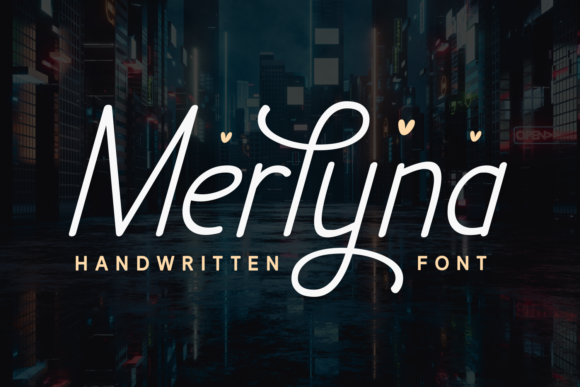
Behold, Merlyna, a script font that holds the key to unlocking your creative potential. Bask in the beauty of its ravishing style, meticulously designed to elevate your designs to breathtaking heights.
With Merlyna, your words transform into graceful strokes, each letter flowing effortlessly into the next. Its meticulously crafted glyphs and swashes await your command, ready to add a touch of elegance and sophistication to your projects.
Unleash your imagination and let Merlyna guide you through a realm of endless possibilities. Create stunning contest posters that draw the eye and capture the hearts of your audience. Picture the awe-inspiring designs you'll craft, leaving an indelible mark on anyone who lays eyes upon them.
Merlyna's PUA encoding opens up a world of creative freedom. Effortlessly access the full range of glyphs and swashes, effortlessly adding intricate details and flourishes to your designs. Say goodbye to limitations and embrace the boundless possibilities that await you.
Immerse yourself in the world of Merlyna, where beauty and functionality harmoniously coexist. Whether you're a seasoned designer or just starting your creative journey, this font will become your trusted companion, guiding you toward design excellence.
Join the ranks of those who have discovered the magic of Merlyna. Let its captivating style ignite your passion and transform your designs into masterpieces. Seize this opportunity to elevate your creative endeavors and leave a lasting impression on the world.